The best handwritten font bundles for wedding invitations give you more than a folder full of pretty scripts. A useful collection should help you create a complete stationery suite: invitation headings, couple names, save-the-date cards, RSVP inserts, envelope details, table numbers, menus, and signage.
I also look for variety within a consistent mood. One expressive script may be enough for the couple’s names, but it probably will not suit every line on the invitation. Bundles containing lighter calligraphy, clean monoline lettering, signature styles, and a few restrained display faces provide much more room to build a readable hierarchy.
This list focuses on Creative Fabrica bundles with clear wedding applications, credible popularity signals, or practical extras such as ligatures, swashes, multilingual characters, and software compatibility.
1. The Handwritten Collections Font Bundle
My pick for the widest range of wedding styles
This is the bundle I would examine first when I need one large library for several different wedding aesthetics. It contains 150 fonts spanning handwritten, cursive, calligraphy, farmhouse, and craft-oriented categories. The listing specifies OTF and TTF files, along with multilingual support. It also had a 5.0 score from 47 reviews when researched, the strongest review signal in this roundup.
The breadth is both its strength and its drawback. It can cover romantic, rustic, playful, and informal celebrations, but couples may need to spend more time auditioning fonts before finding a cohesive combination.
I would use the most ornate styles sparingly—for the names, monogram, or one short heading—then keep logistical details in a restrained serif or sans serif.
Best for: DIY stationery suites, rustic weddings, designers building a reusable font library
Key features: 150 fonts, OTF and TTF files, multilingual support, varied handwritten styles
2. Wedding Ceremony Font Bundle
My pick for a coordinated ceremony suite
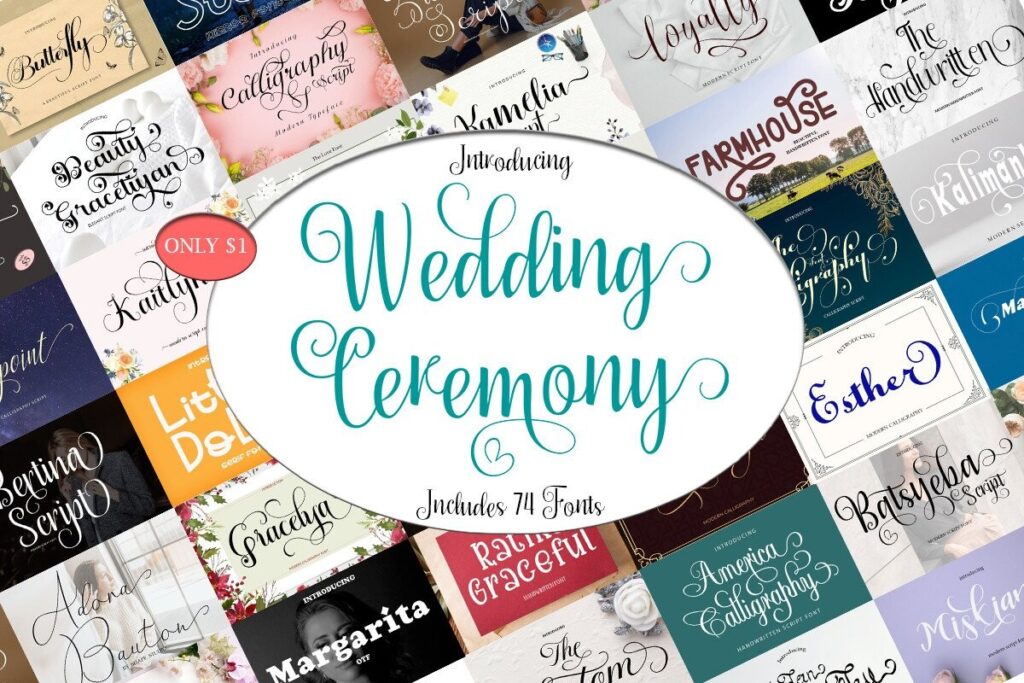
The Wedding Ceremony Font Bundle is more narrowly framed around wedding work, which can reduce the decision fatigue that comes with an enormous general-purpose collection. Its listing describes a collection of 74 fonts, although the same page also displays a conflicting “24 Premium Fonts” label. That discrepancy is worth checking on the live product page before purchasing. It had a 4.8 score based on 32 reviews when researched.
I like this option for couples who want to carry one visual language from the invitation through the program, welcome sign, place cards, and ceremony readings. A wedding-specific bundle is also easier to explore when you already know the mood should be romantic rather than experimental.
Best for: Ceremony programs, matching signage, traditional wedding suites
3. The Modern Wedding Font Bundle
My pick for contemporary minimalist invitations
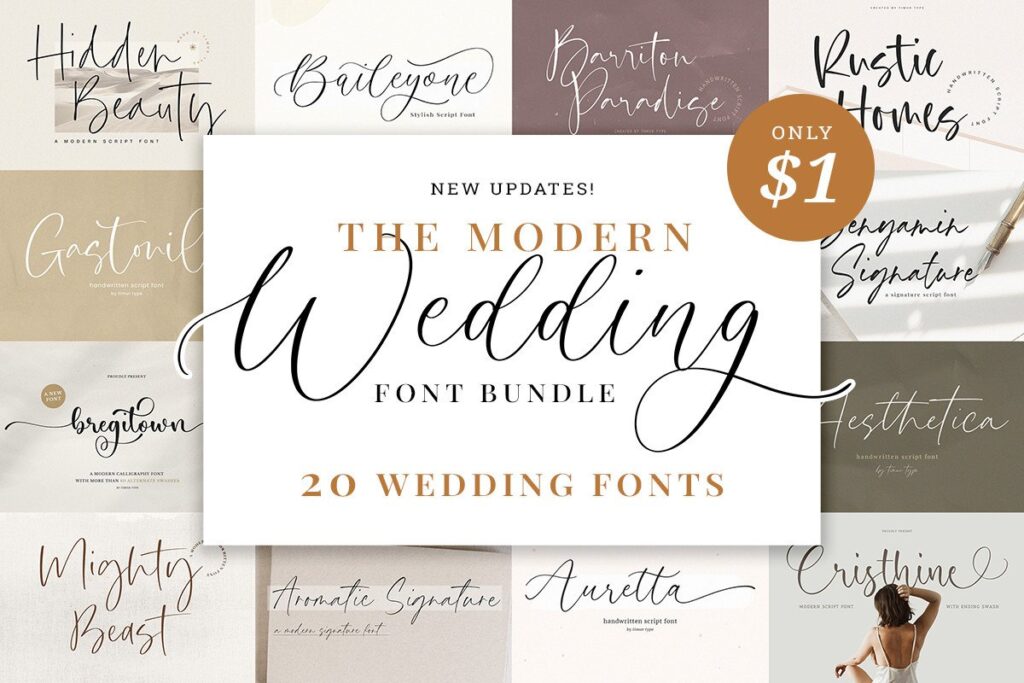
This 20-font collection is my preference for invitations that should feel current without becoming cold or overly geometric. A smaller curated bundle can be more practical than a huge archive when the design direction is already clear.
The Modern Wedding Font Bundle had a 5.0 score from 15 reviews when researched. Its product page lists 20 premium fonts and identifies it specifically as a modern wedding collection.
My take is to pair one loose or high-contrast handwritten face from the bundle with a clean serif for the venue, date, and response information. Plenty of white space will do more for a modern invitation than adding flourishes to every corner.
Best for: Minimalist weddings, editorial invitations, contemporary save-the-dates
Key features: 20 fonts, wedding-specific curation, strong review score, contemporary direction
4. Chic & Sweet Wedding Font Bundle
Chic & Sweet Wedding Font Bundle sits between a small coordinated set and an oversized all-purpose library. It contains 75 typefaces and combines classic and modern styles. The listing specifically identifies invitations and other wedding elements among its intended applications. It had a 5.0 score based on 10 reviews when researched.
Some are, but most should not carry every line. Keep dates, addresses, RSVP instructions, and website information in a readable serif or sans serif. Use the handwritten font for short, prominent text.